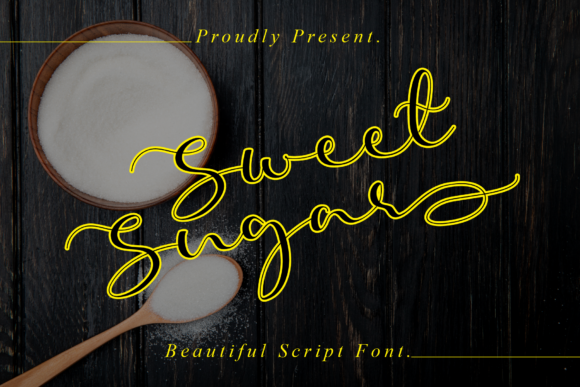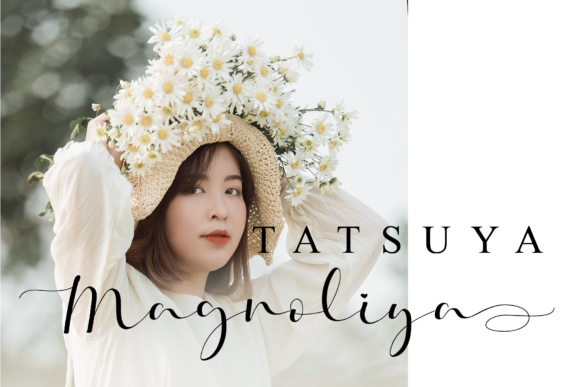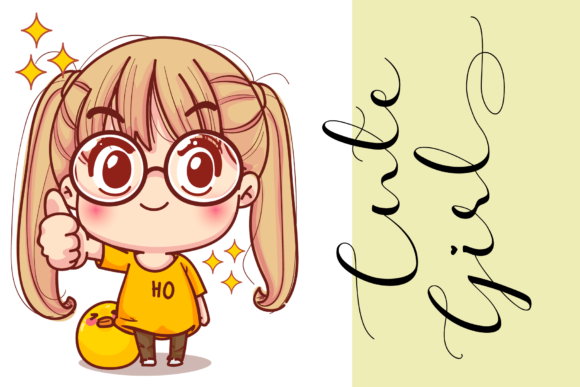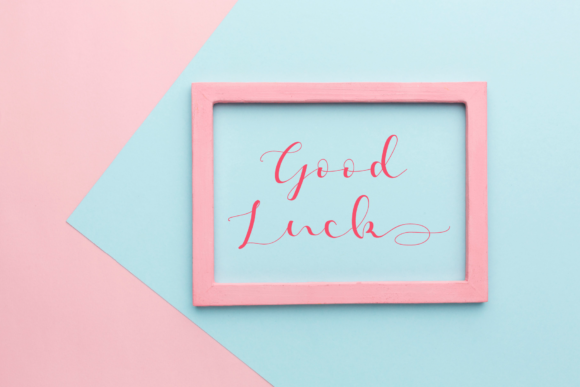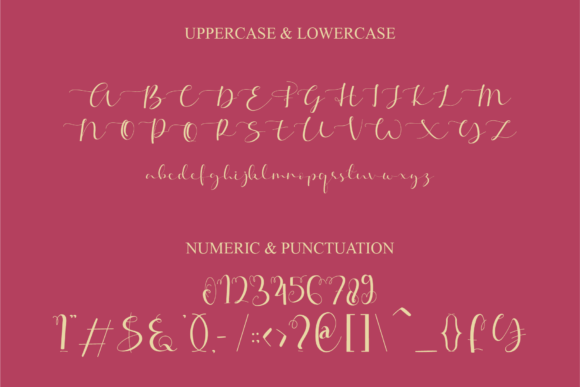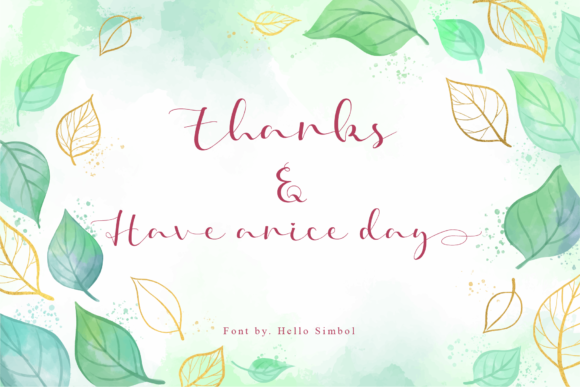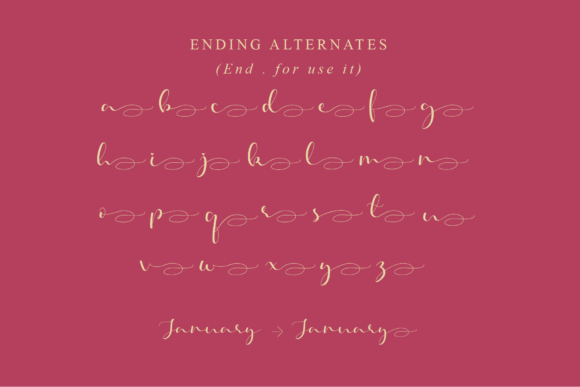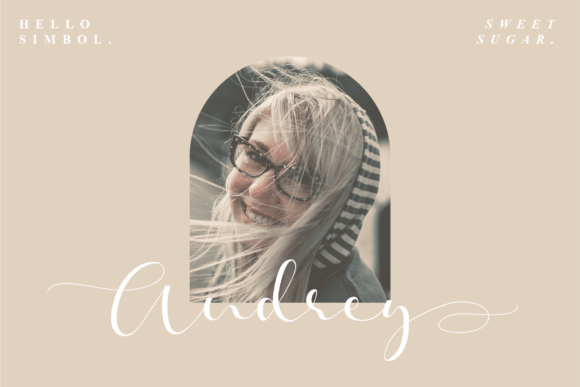
Sweet Sugar Font
About Sweet Sugar Font
“Sweet Sugar” sounds like a delightful and versatile handwritten font that combines modernity with friendliness. With a touch of quirkiness, this font is sure to stand out and shine in a wide range of contexts.
By using “Sweet Sugar” in your projects, you can add a sense of playfulness and approachability. Its friendly handwritten style makes it feel like a warm and cheerful greeting, creating a welcoming atmosphere for your audience.
This font’s modern look allows it to adapt seamlessly to various design contexts. Whether you’re working on branding, social media graphics, packaging, or any other project, “Sweet Sugar” can effortlessly blend in and enhance the visual appeal.
The quirky elements of “Sweet Sugar” add a unique and captivating touch to your designs. It stands out from more conventional fonts, making it a perfect choice for projects that aim to break the mold and stand out from the crowd.
The PUA encoding of “Sweet Sugar” is a valuable feature that provides easy access to all the glyphs and swashes it offers. This grants you the creative freedom to explore various stylistic variations, ligatures, and decorative elements, allowing you to customize the typography according to your creative vision with ease.
With “Sweet Sugar,” you can experiment with different colors, sizes, and layouts to create visually striking and engaging designs. Its versatility makes it suitable for headlines, subheadings, or any other text element that requires a modern and friendly touch.
While embracing the quirkiness of “Sweet Sugar,” remember to maintain readability and legibility. Proper spacing and alignment between letters ensure that the text remains clear and easy to read, preserving the overall appeal of your designs.
In conclusion, “Sweet Sugar” is a modern and friendly handwritten font that can add a playful and captivating touch to your projects. Its versatility and PUA encoding make it a user-friendly choice for various creative endeavors. Embrace the sweetness of “Sweet Sugar” and let it be the font that adds a modern and charming flair to your designs, making them truly adept in any context.